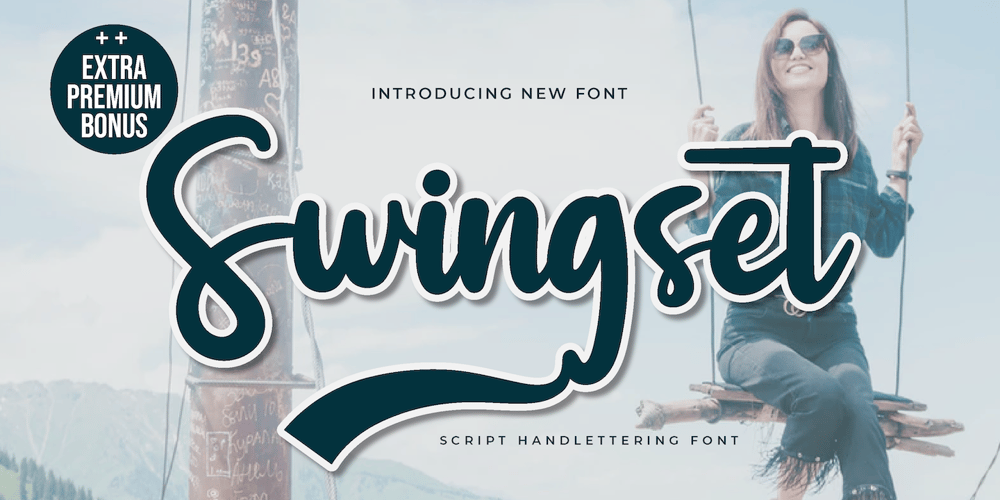
Swingset
Swingset font
Swingset Font Family was designed by Rozikan and published by Twinletter. Swingset contains 1 styles and family package options. This font is created with original hand drawn strokes for a relaxed, beautiful and elegant impression. This font also offers beautiful abstract typographic harmony for a wide variety of design projects, including natural handwriting in digital form for designs, quote designs, for social media business designs, advertisements, trademarks, promotional banners, posts, posters, signatures, and all designs require handwriting or whatever design you want. This font is equipped with uppercase, lowercase, numbers, punctuation marks, swhases and several variations on each character including multi-language. This font is best suited for open type friendly applications. How to get alternative glyphs from open type fonts: http://adobe.ly/1m1fn4Y PUA Character Code – Fully accessible without additional design software. We hope you enjoy this font.Feel free to send whatever message you want to convey.Thank you Regards